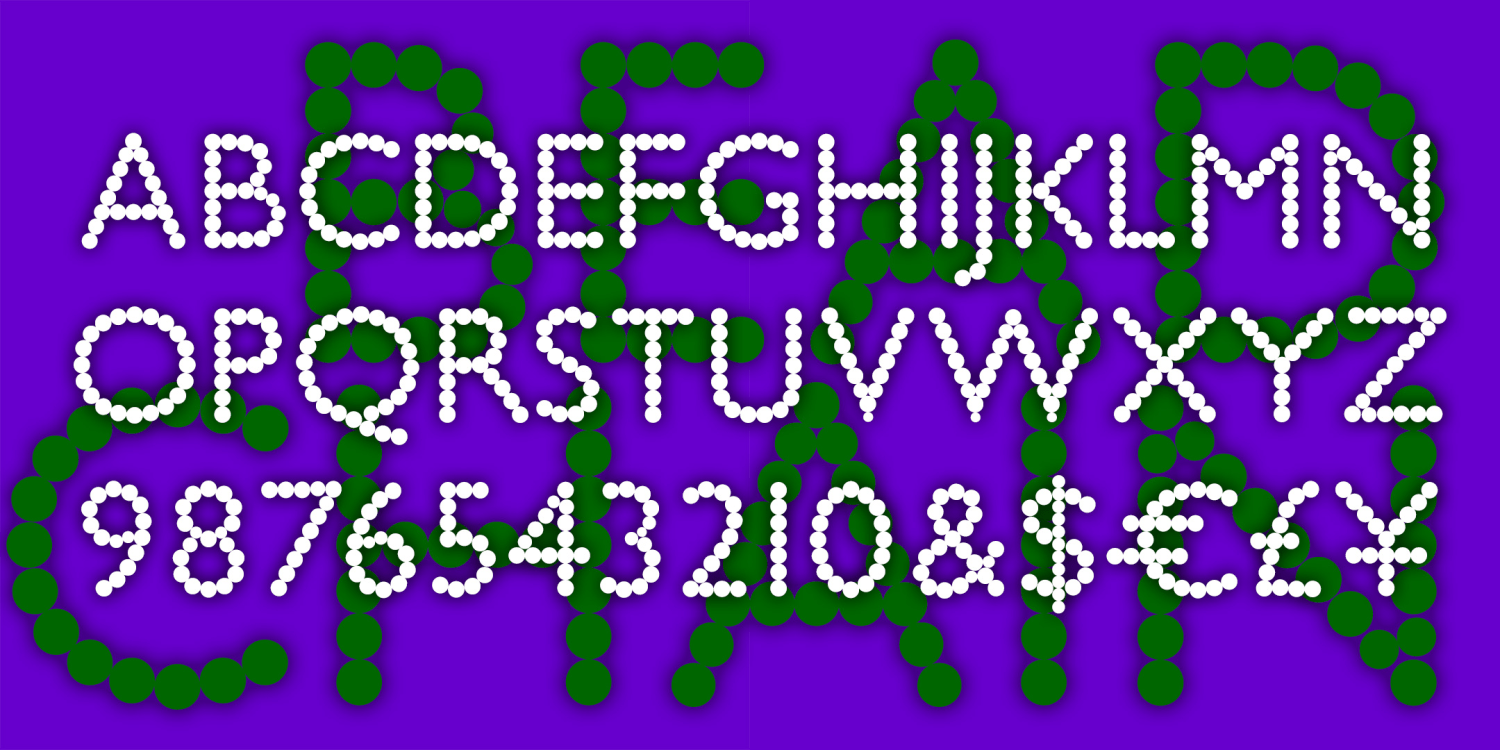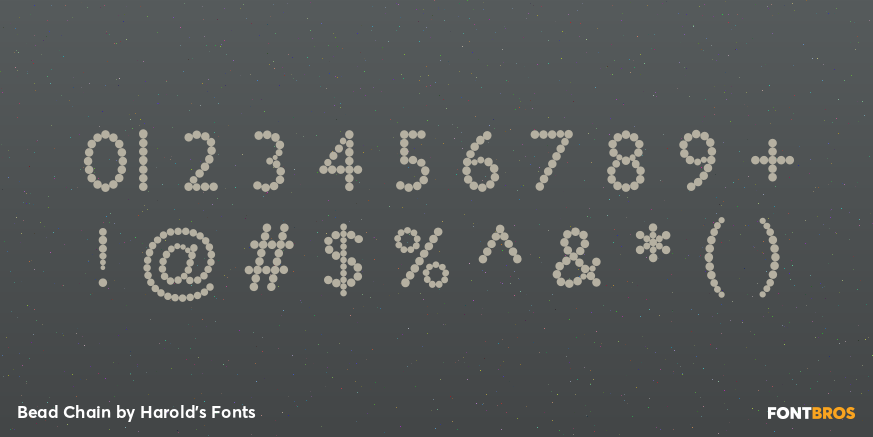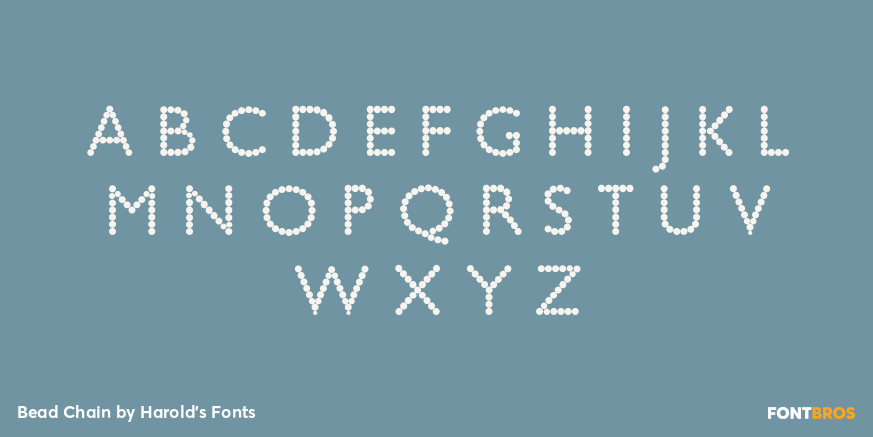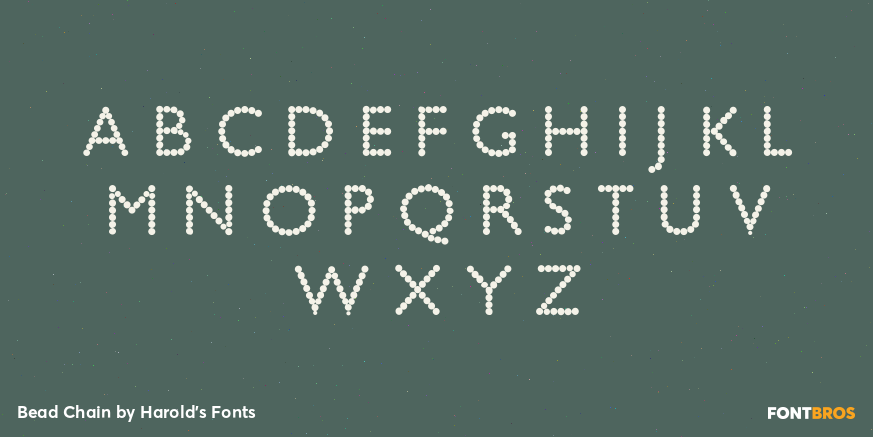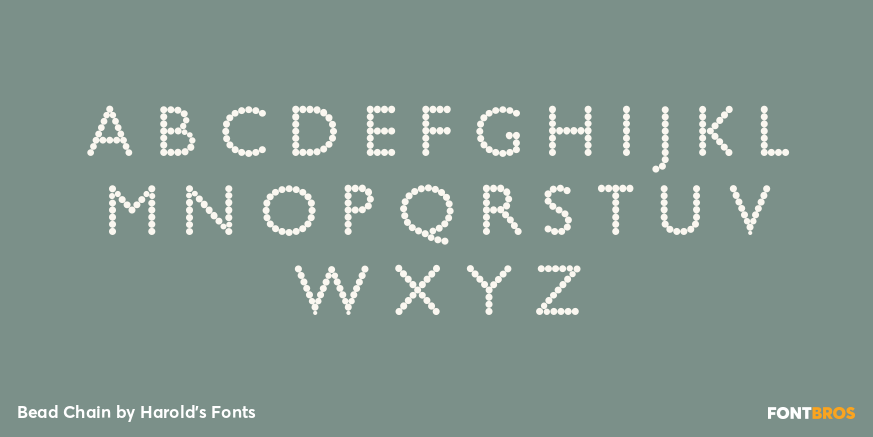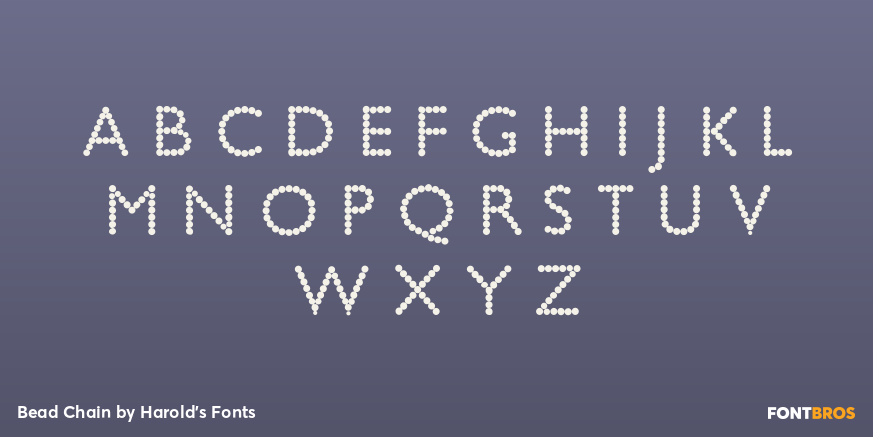
Bead Chain
BEAD CHAIN is one half of the old music hall team of Bead Chain & Marquee.
The letters of BEAD CHAIN suggest a string of pearls. Inspired by a book jacket from the early 20th century, I've used the stately letter forms of Gill Sans as my guide, although most letters had to be reshaped to fit the beads.